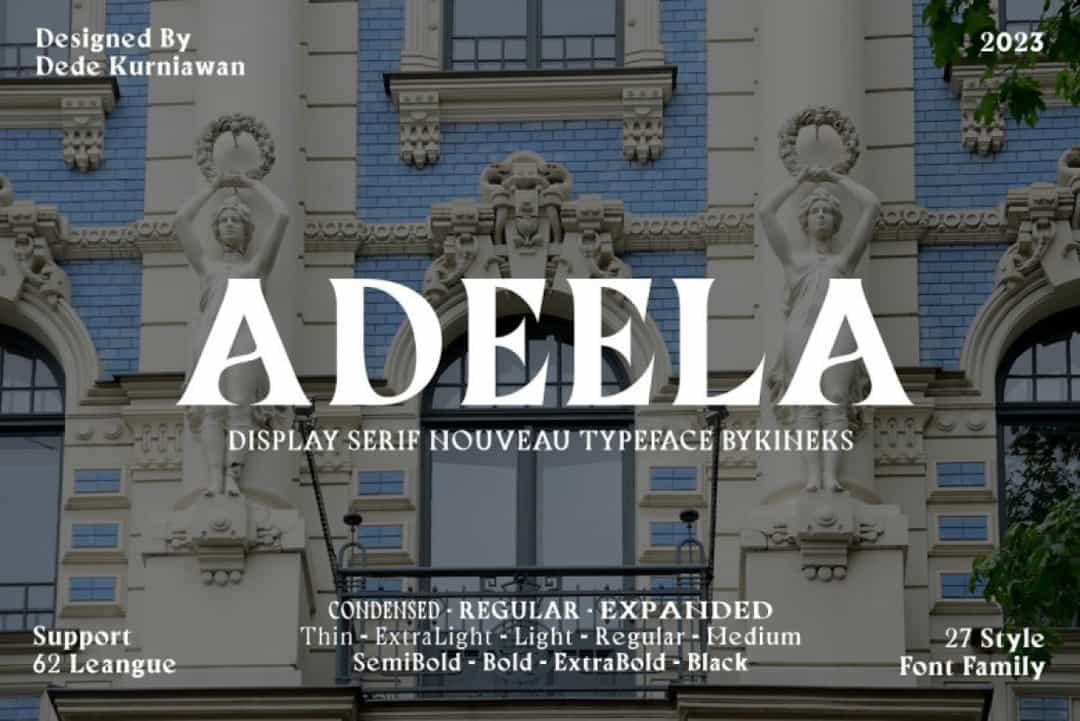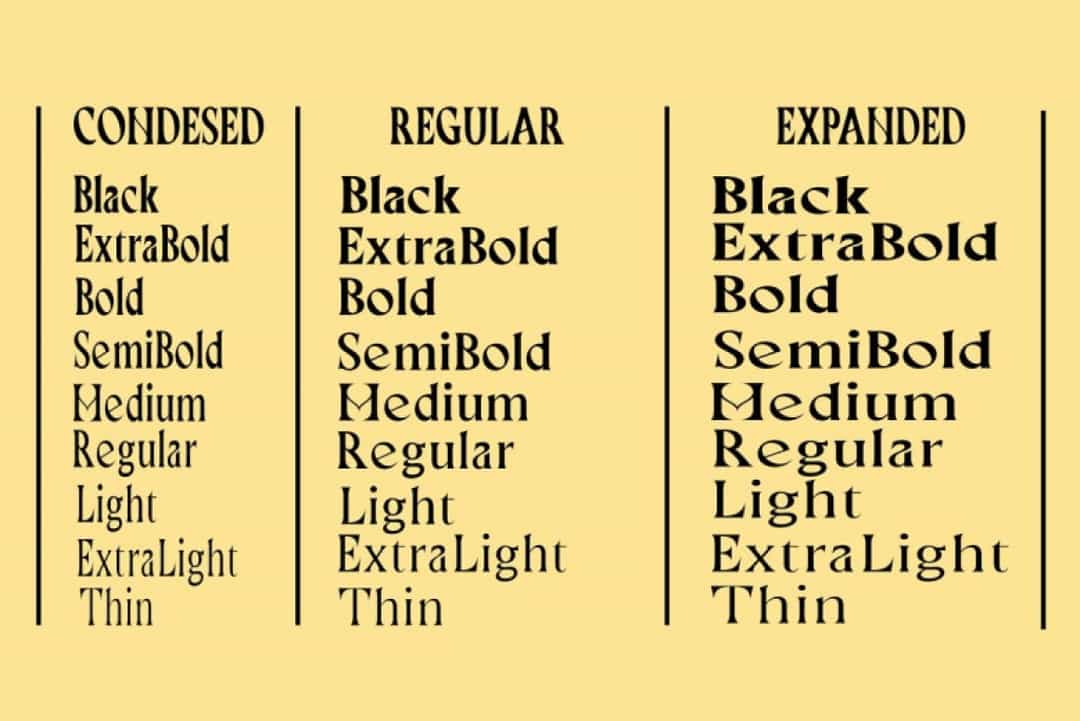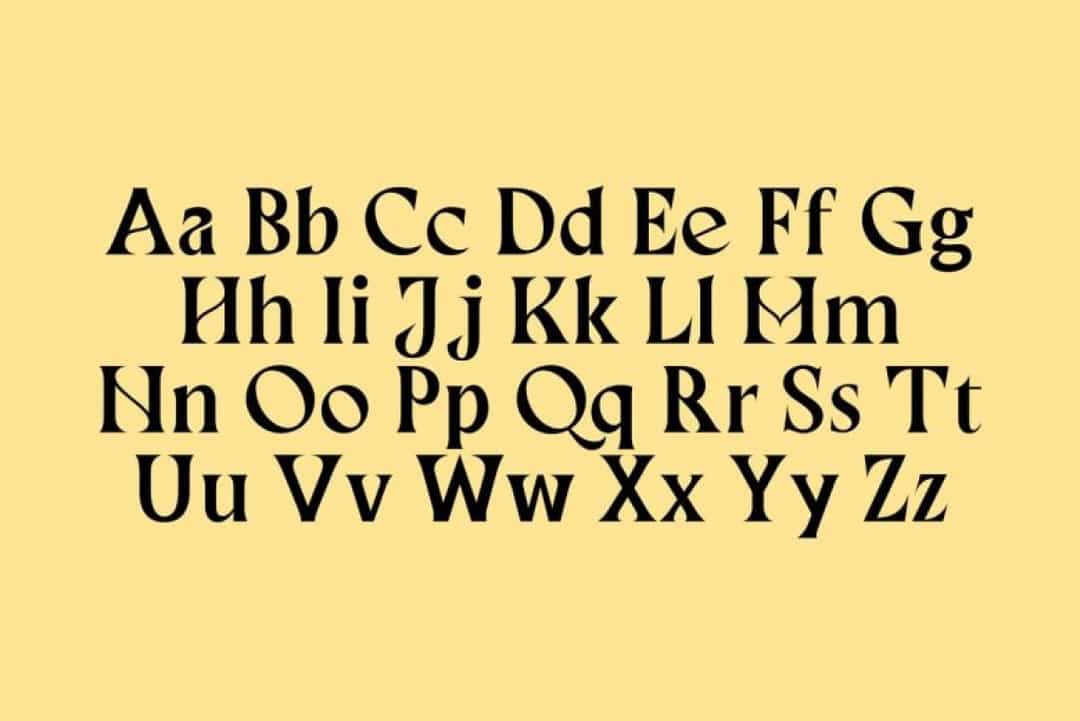
Adeela is an Art Nouveau serif typeface designed to meet a range of design needs. Comprised of 27 families spanning extralight, thin, regular, light semibold bold black extrabold as well as expanded and condensed types, Adeela can meet various size and use requirements with its elegant characters accented by delicate ornamentation reminiscent of Art Nouveau designs.